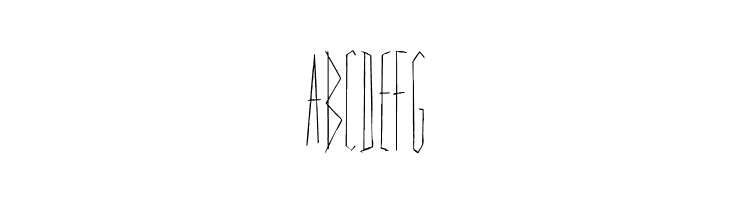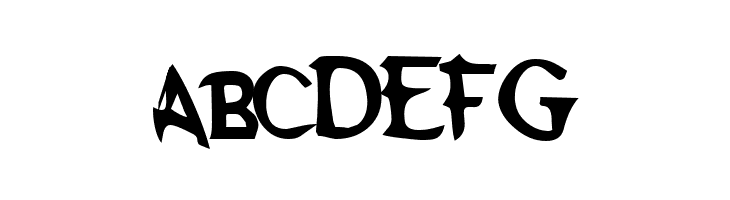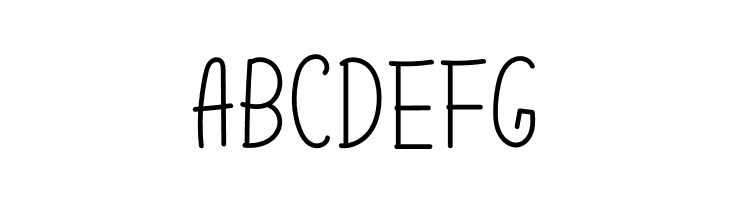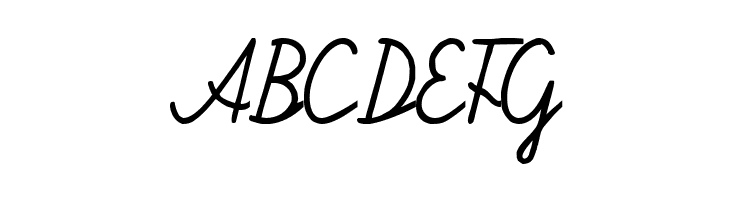
( Fonts by Andy Krahling - Sunwalk )
A playful, bold font with a hand-drawn, chalkboard-like style.
( Edelweiss - www.lehrerweb.at/index.php?page=schulschriften )
A cursive, handwritten font with smooth, connected letters and a classic school script style.
( Saqib Ahmad - blog.graphicspsd.com/ )
A playful, handwritten font with rounded, smooth letterforms and a casual style.
( Fonts by Rob HIndley )
A playful font resembling Scrabble tiles with bold letters and numbers in square borders.
( Fonts by http://perso.calixo.net/~uzim/ )
A modern, edgy font with elongated, narrow letterforms and thin strokes.
( Fonts by Andy Krahling - Sunwalk )
A playful, hand-drawn font with bold outlines and a whimsical style.